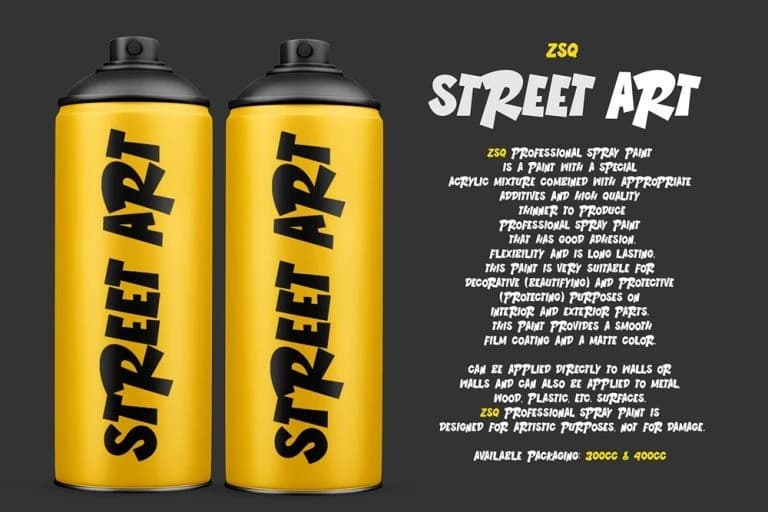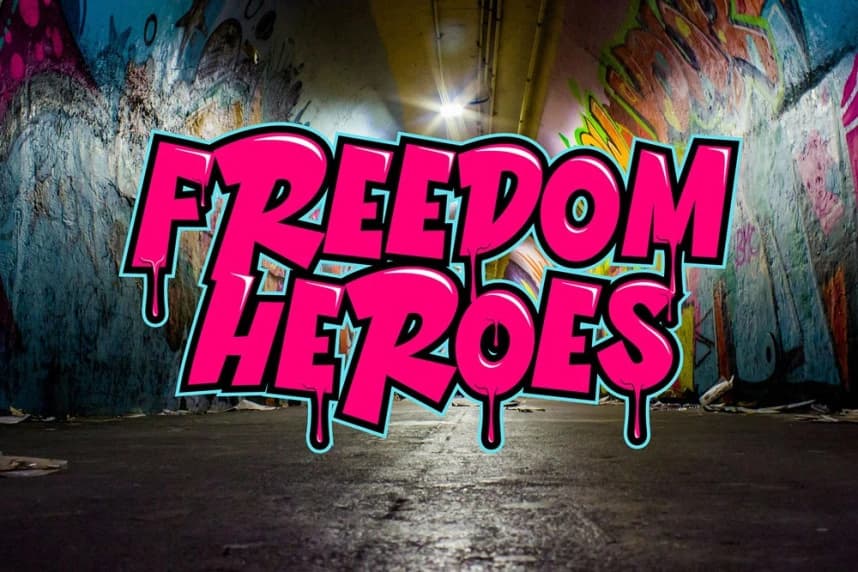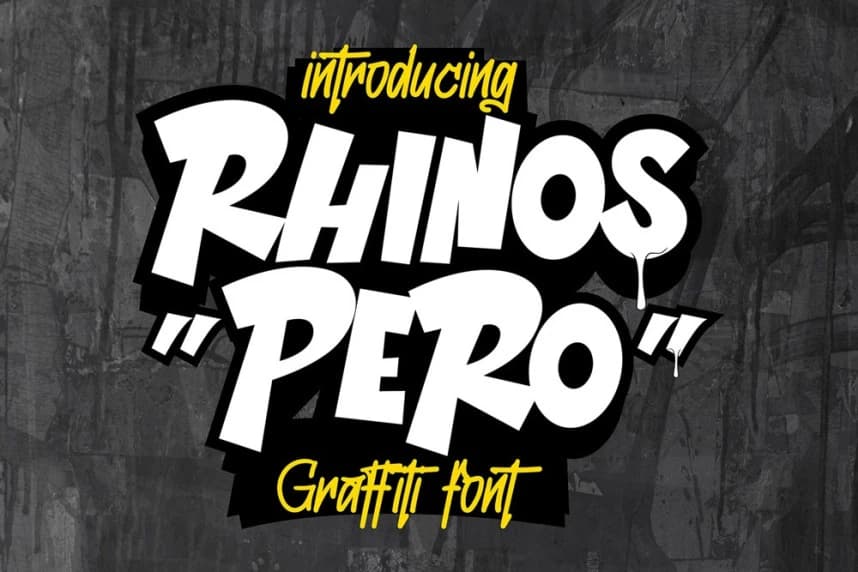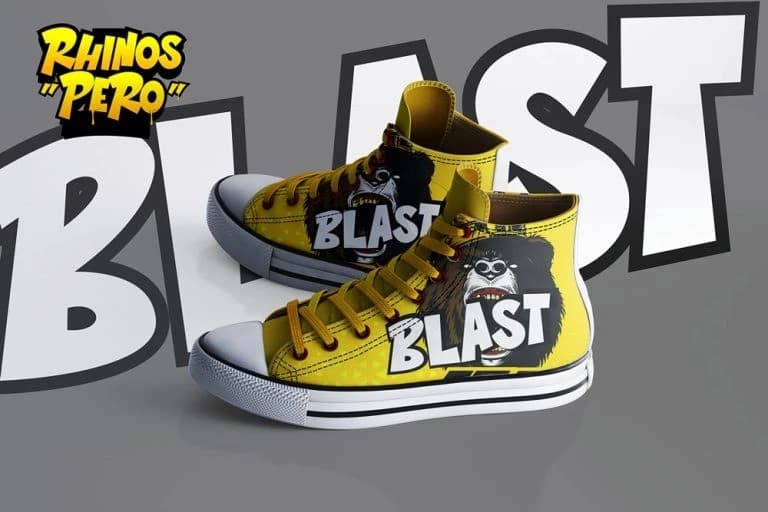
Rhinos Pero Font
Rhinos Pero Font is a bold and aggressive graffiti font designed to bring raw street energy into your creative projects. Built with thick strokes and intense dripping details, this dripping graffiti font captures the essence of real urban tagging culture.